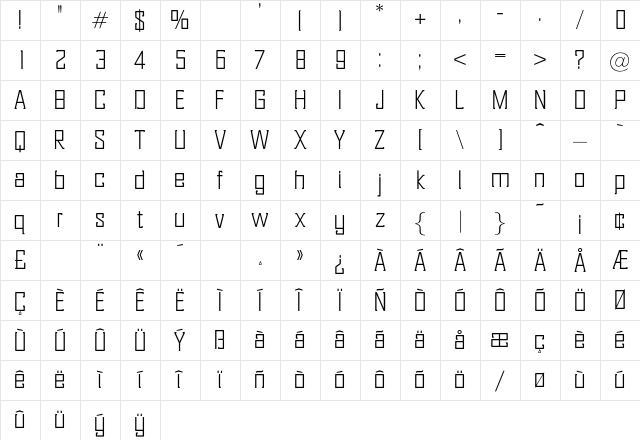
Toshiko ExtraLight Free Font
Toshiko ExtraLight
Style: ExtraLight
Foundry: Hypefortype
Design Context for Toshiko
Toshiko is a composed and adaptable typeface that performs quietly and consistently across a wide range of design contexts. Its slender proportions lend an understated elegance to any composition.